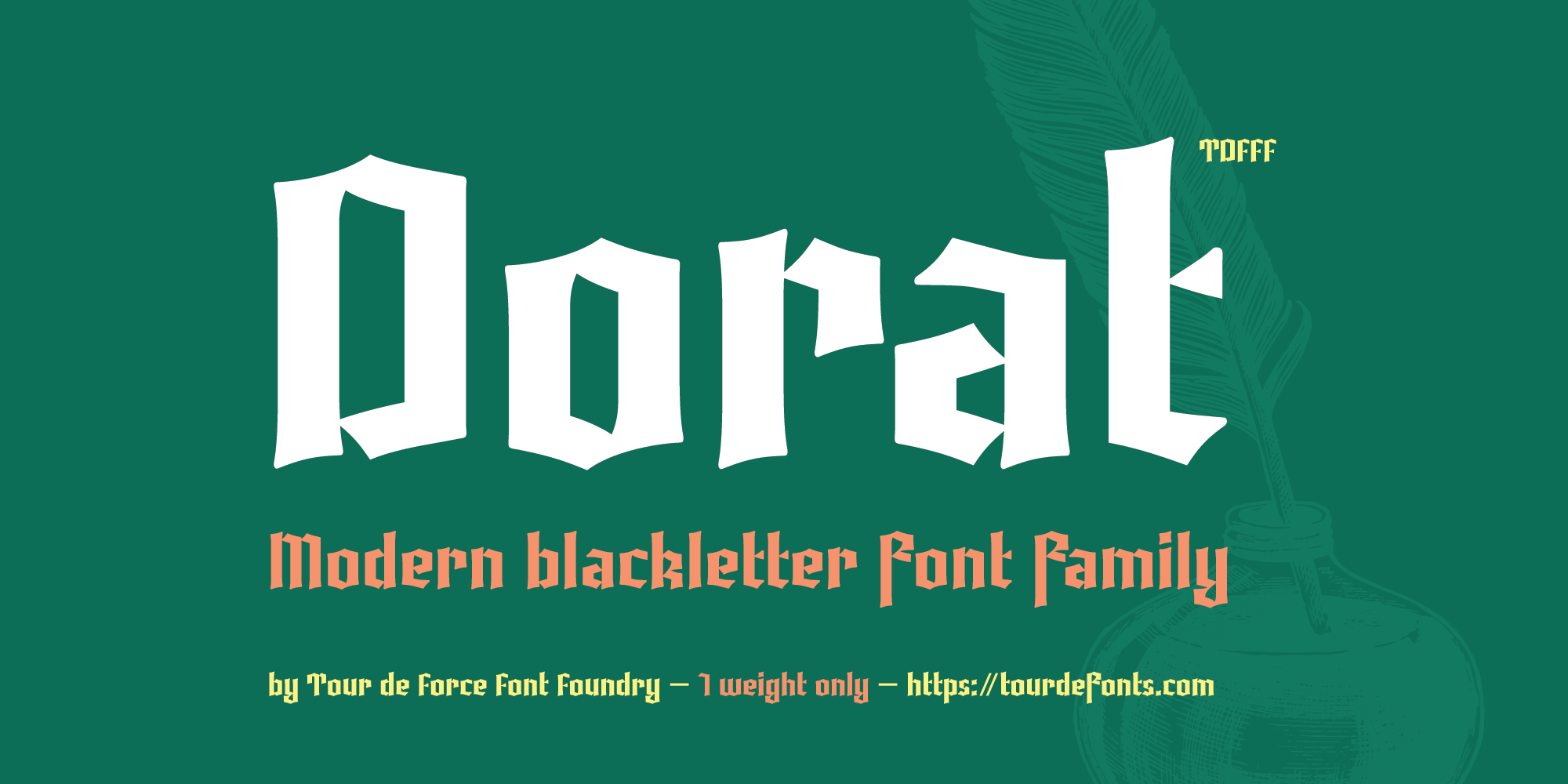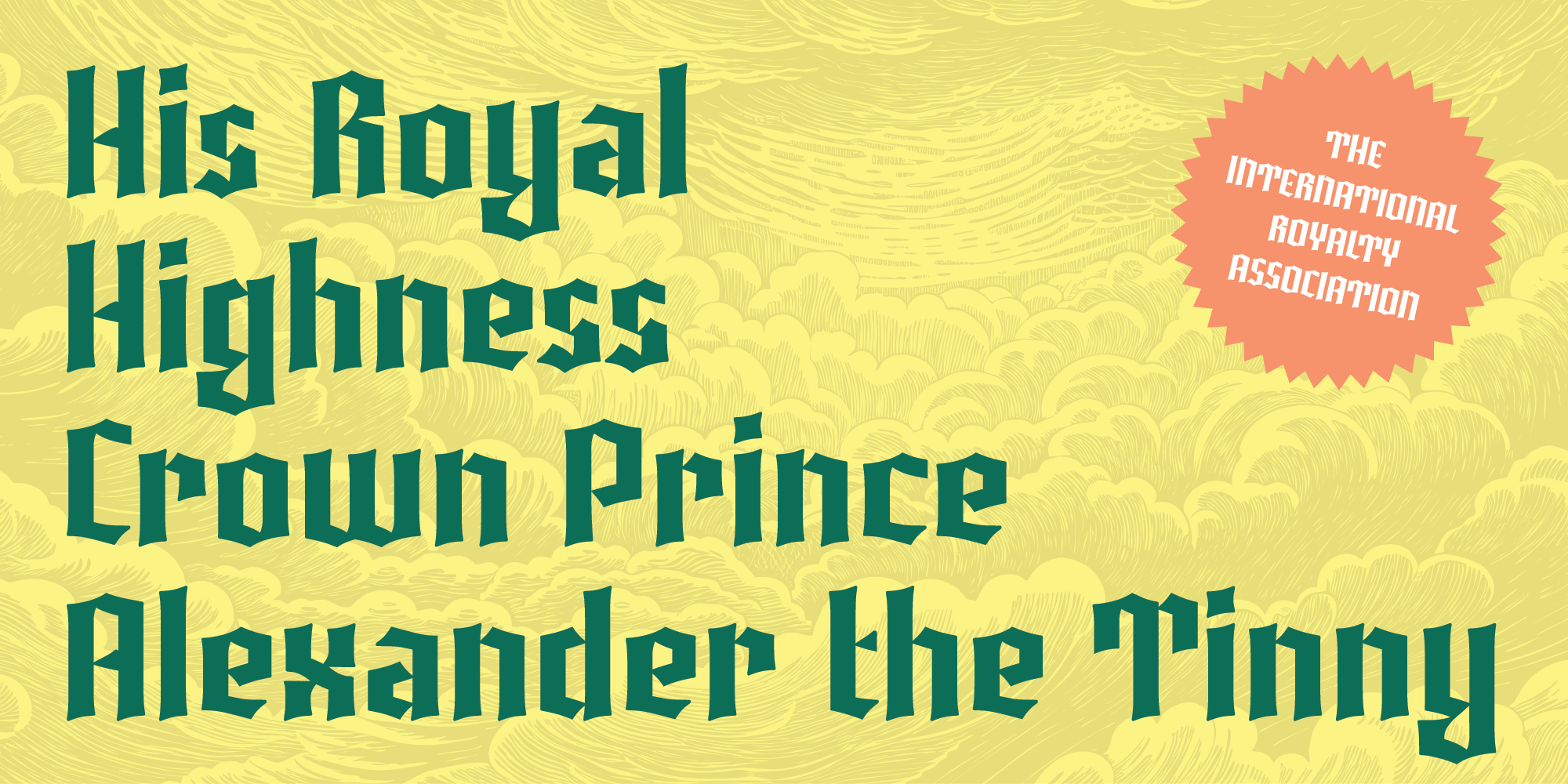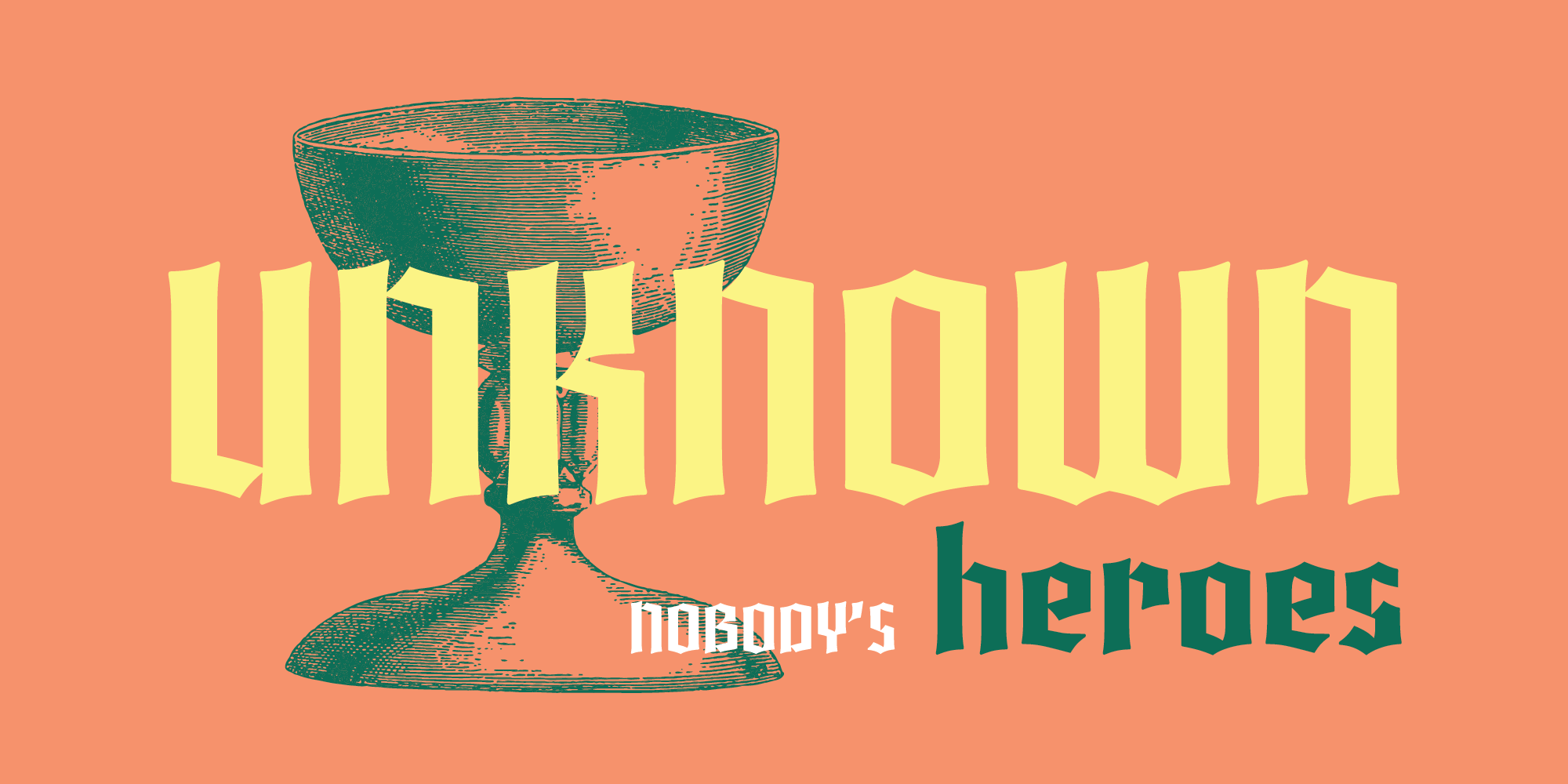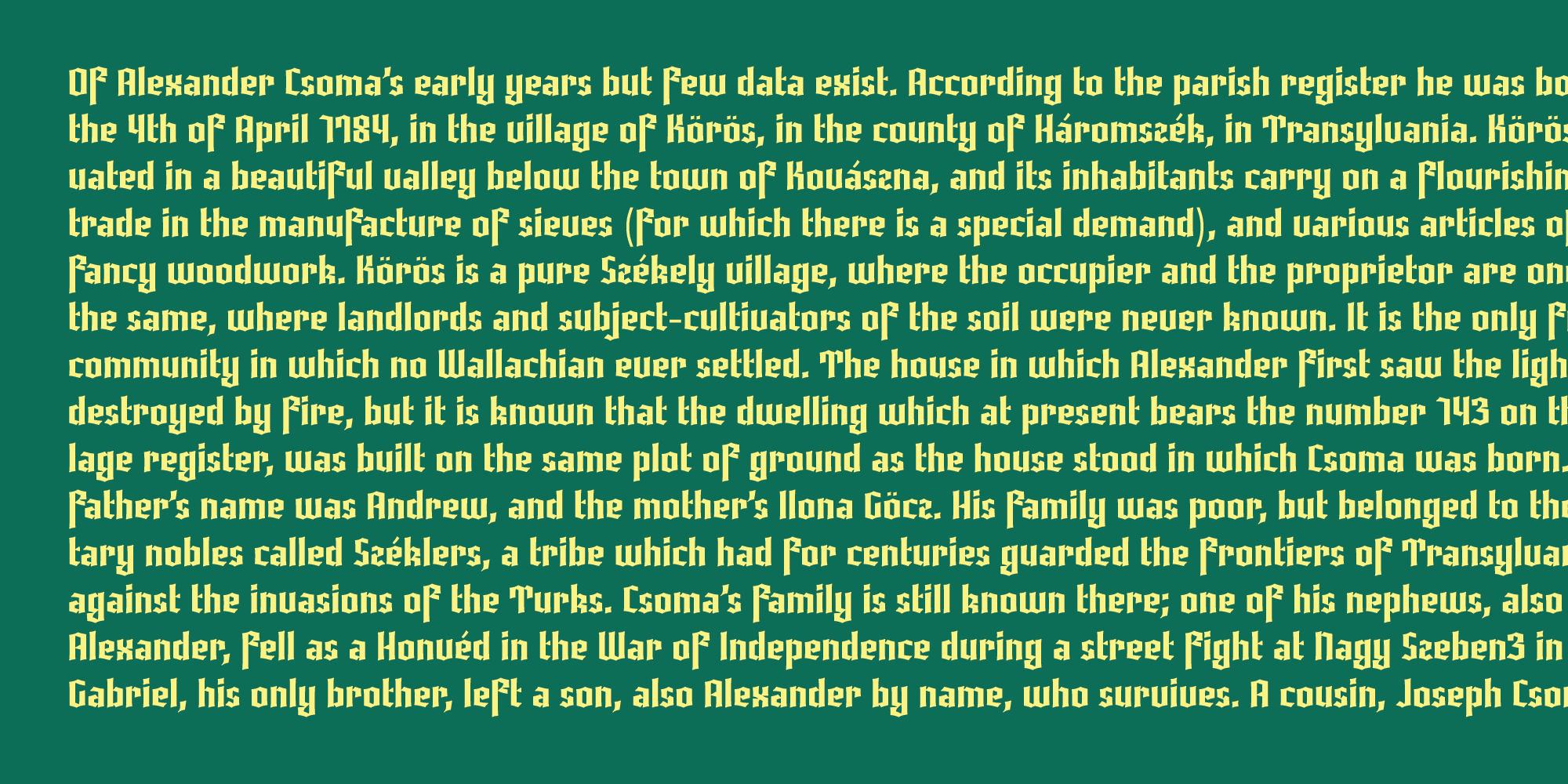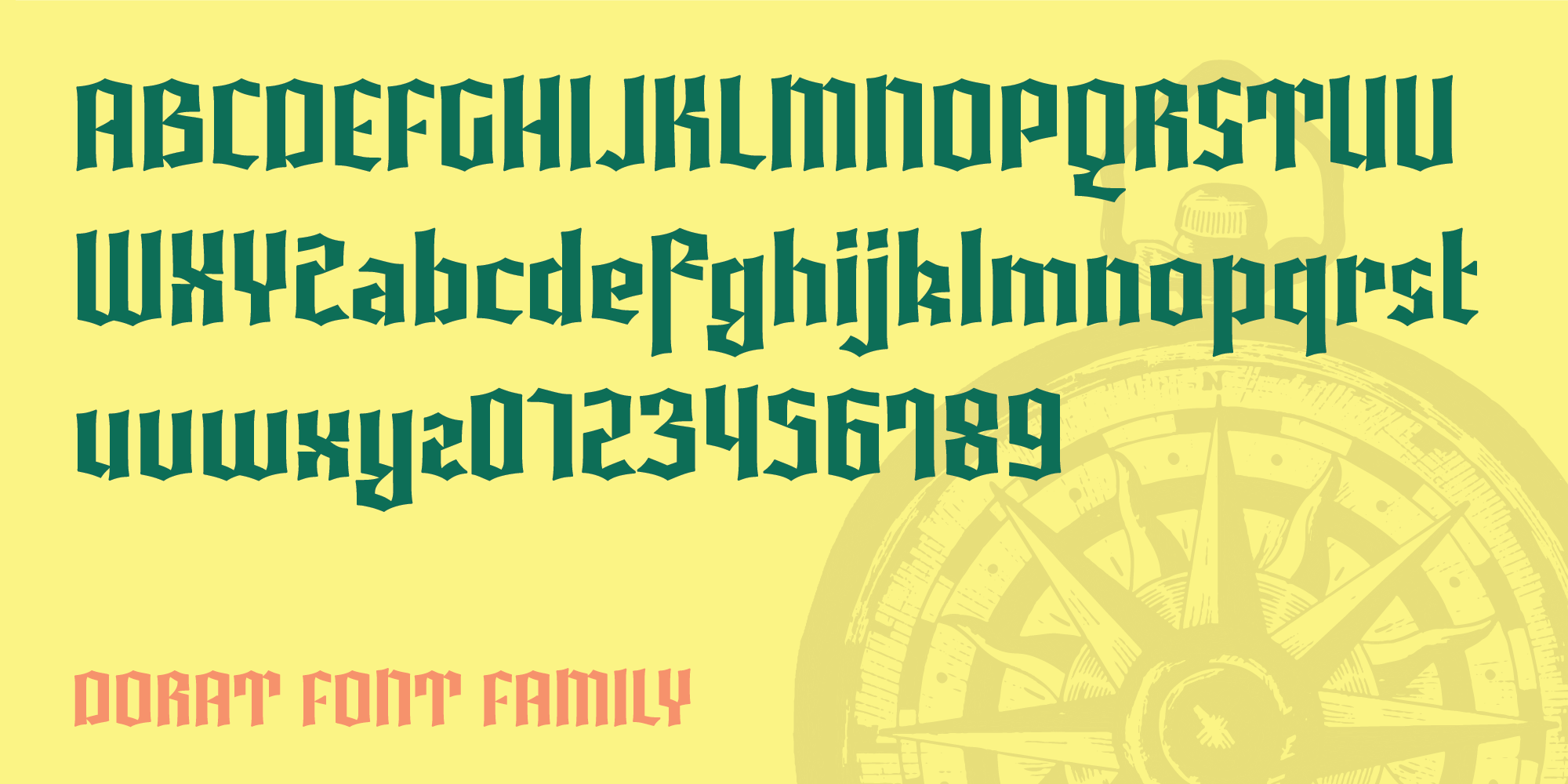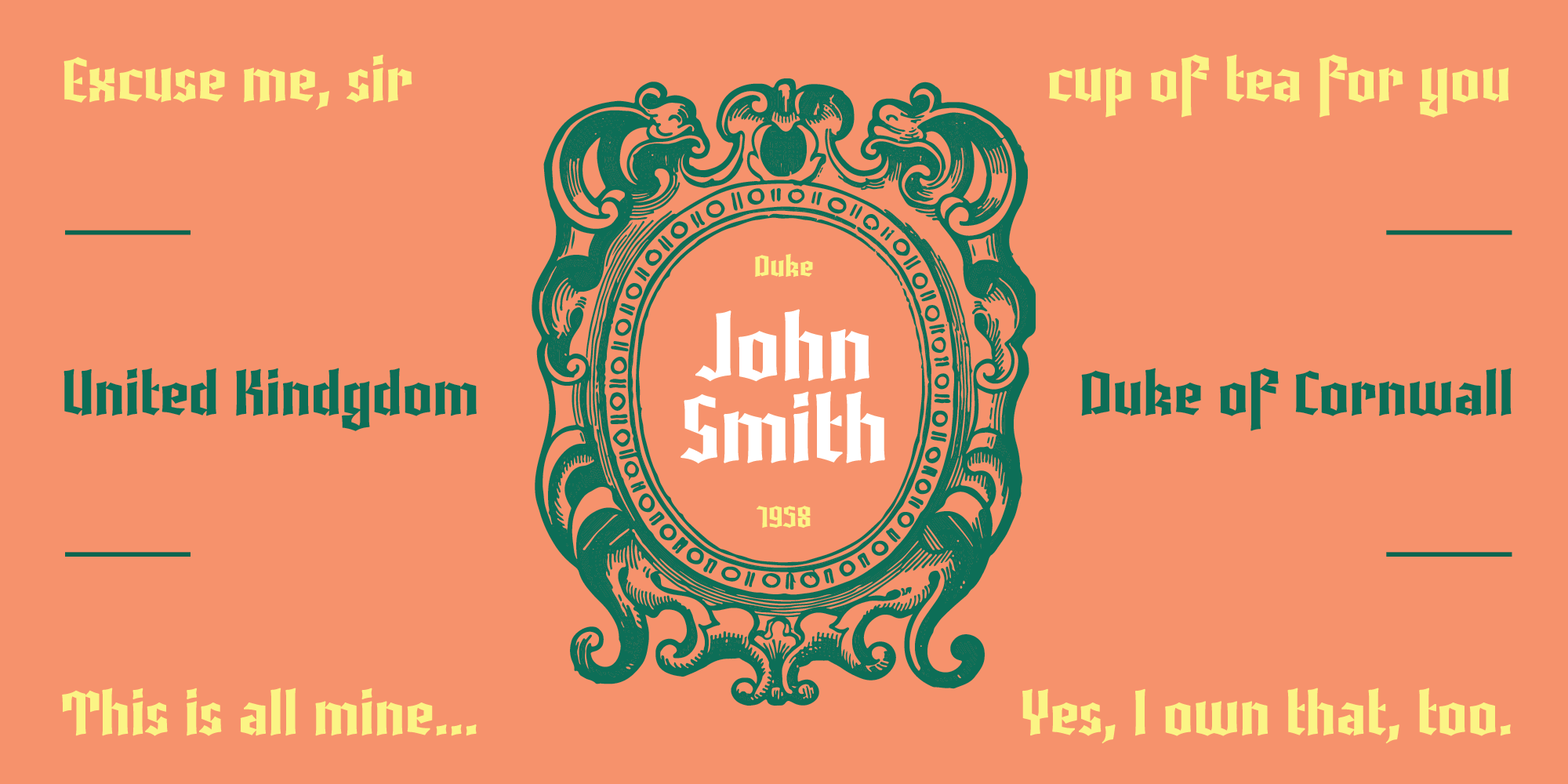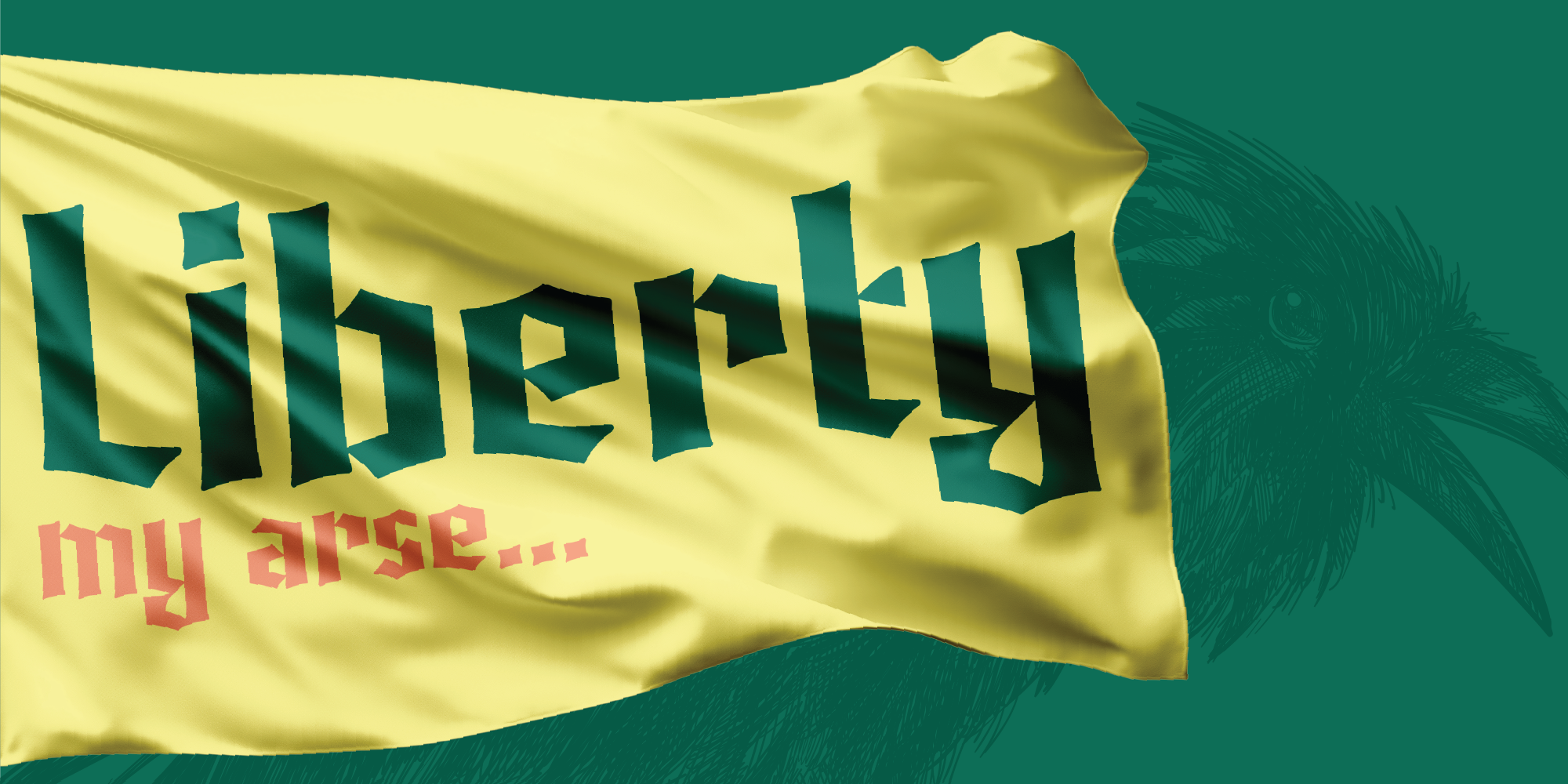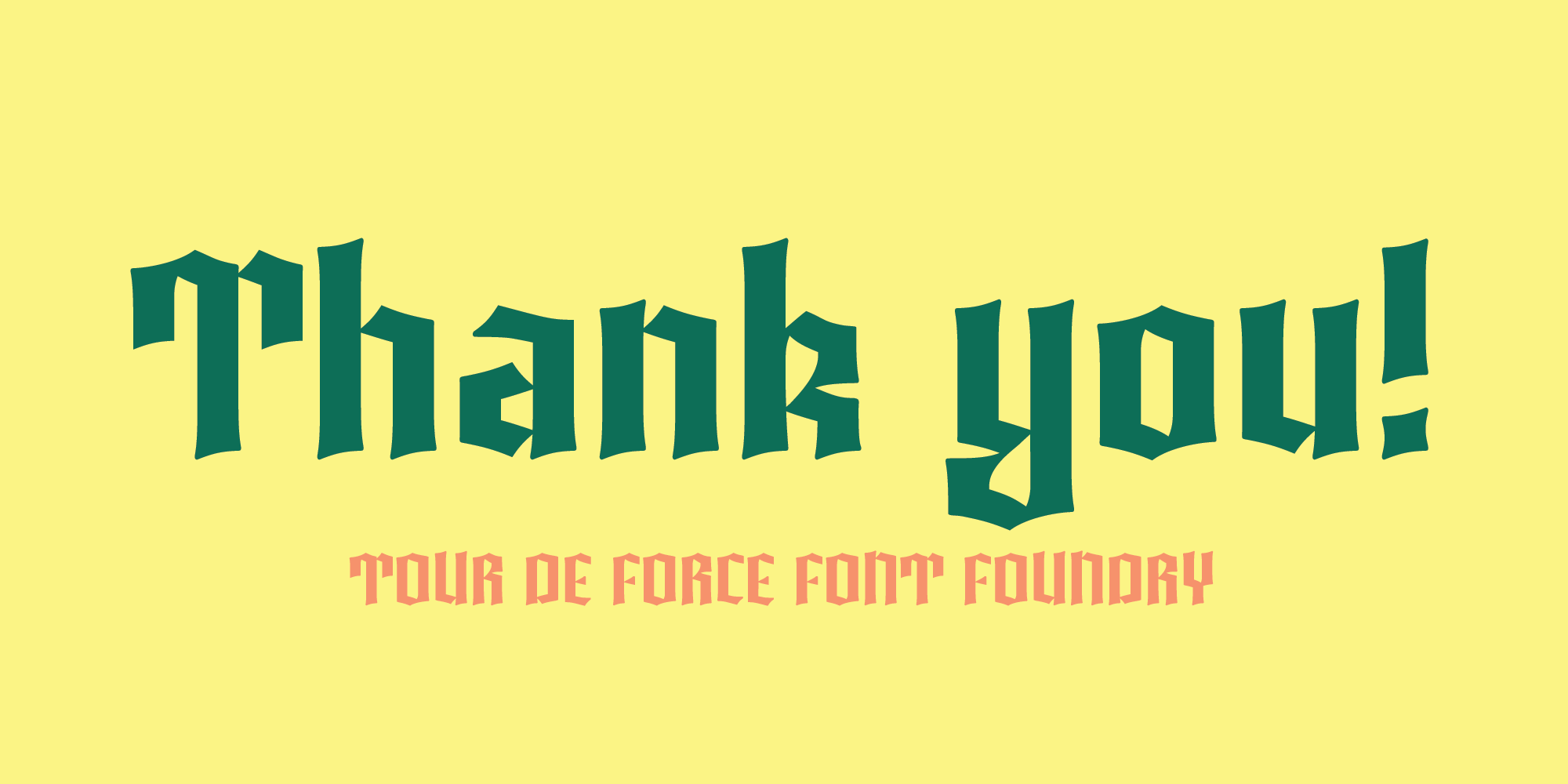
Dorat is modern blackletter available in single weight only.
Dorat is modern blackletter available in single weight only. It's made with simple forms, as simplest as possible, but enough recognizable and unique, with catchy details. During design of Dorat, there were no specific historical references. It would be cool to use Dorat in some modern projects, where creative freedom is fully allowed and where Dorat could be the main player in projects. From posters to packages, webpage titles or logos, Dorat is ready.